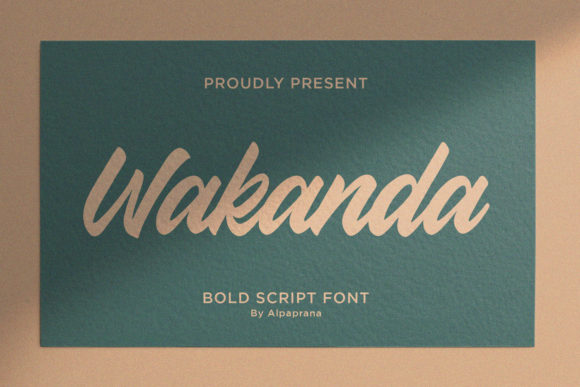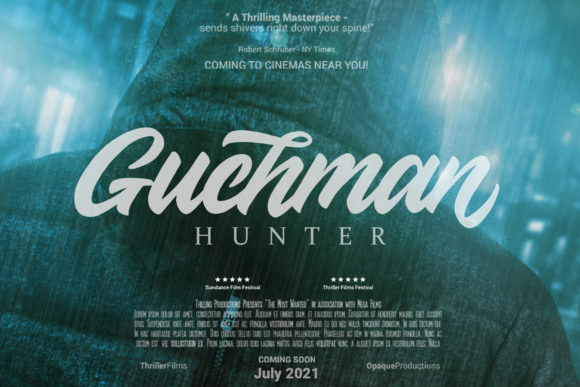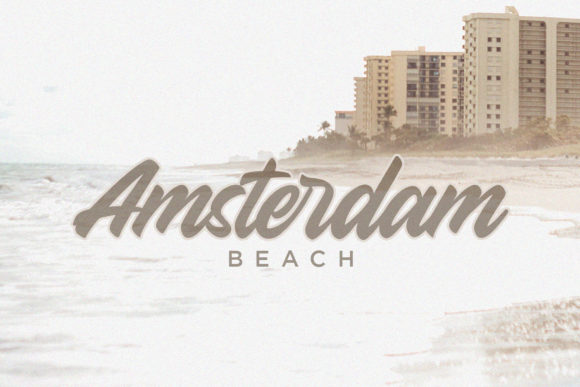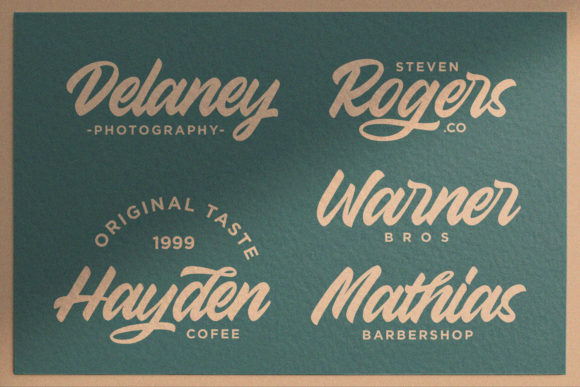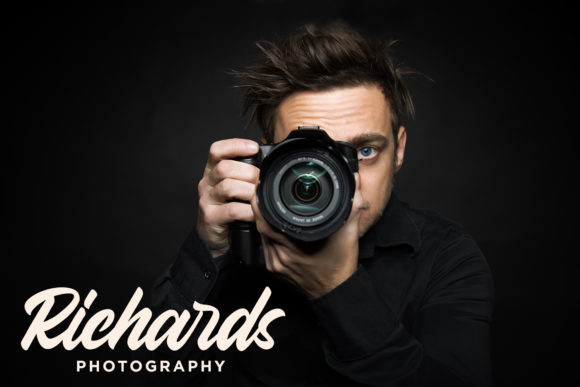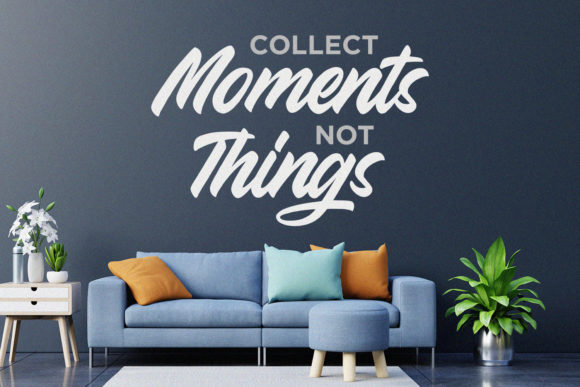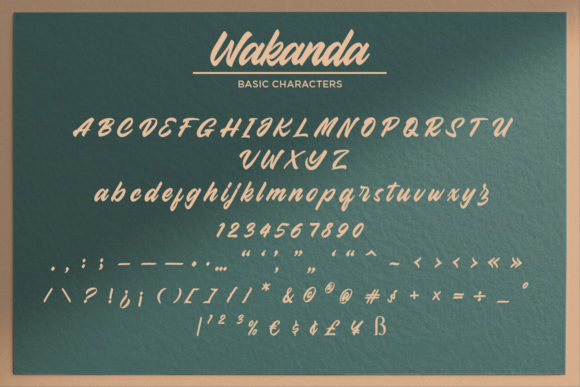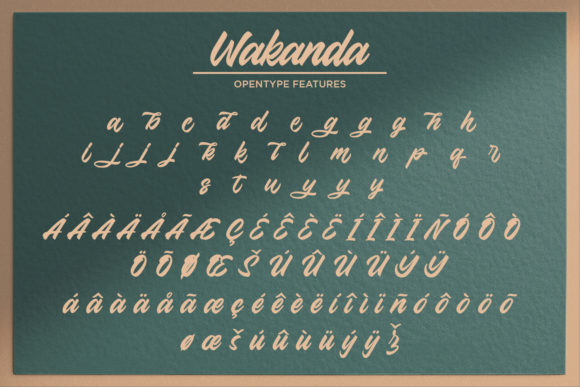
Wakanda Font
About Wakanda Font
Introducing Wakanda, a daring and cursive handwritten font designed to give your headlines and logotype projects a stylish touch. With its strong, confident, and dynamic appearance, Wakanda adds tons of nostalgic character to your designs, creating a bold and captivating visual impact.
Wakanda’s daring and cursive handwritten design sets it apart as a font that exudes strength and confidence. Each letter carries a sense of fluidity and movement, creating a visually engaging composition. This dynamic style adds a touch of energy and character to your designs, making them stand out and leave a lasting impression.
The versatility of Wakanda allows it to enhance various design contexts, particularly headlines and logotypes. Whether you’re working on branding projects, poster designs, magazine covers, or any other creative endeavor, Wakanda adds a stylish touch that commands attention. Its bold and cursive nature creates a visual impact that captivates viewers.
Wakanda’s nostalgic character adds a timeless and classic feel to your designs. The cursive nature of the font evokes a sense of handcrafted artistry, creating a connection with viewers. Whether used for vintage-inspired projects, retro-themed designs, or to add a touch of nostalgia to contemporary designs, Wakanda brings a unique and memorable aesthetic.
In addition to its visual appeal, Wakanda’s strong and confident appearance adds a sense of authority and impact to your headlines and logotypes. The bold and daring letterforms make a statement and grab attention. This creates a powerful presence in your designs and helps communicate your message with clarity and impact.
In summary, Wakanda is a daring and cursive handwritten font that adds a stylish touch to your headlines and logotype projects. Its strong, confident, and dynamic appearance creates a nostalgic character that captivates viewers. Embrace Wakanda’s bold and captivating style and let it elevate the visual impact of your designs, adding a touch of strength, confidence, and nostalgic charm.